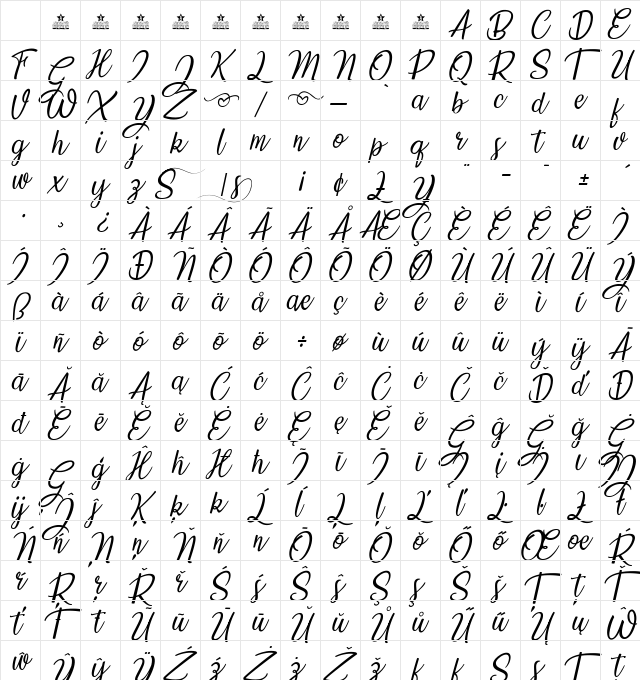
Complete Sunflowers two Regular glyph index. Displaying only characters natively supported by Sunflowers two Regular font.
Sunflowers two is a composed and adaptable typeface that performs quietly and consistently across a wide range of design contexts.